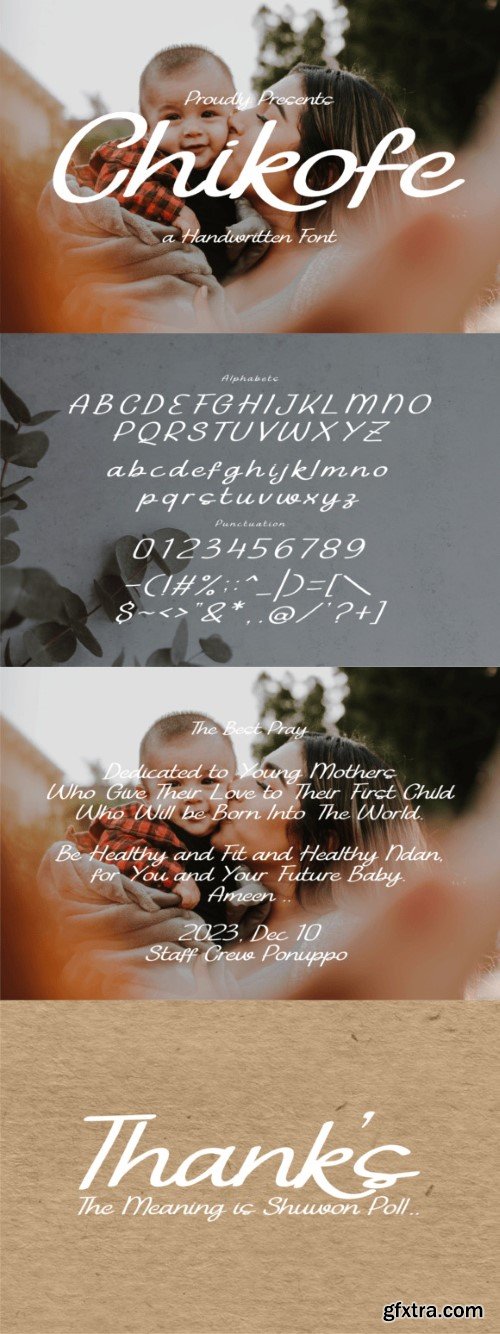
奇科夫字体
This font from the Handwritten family is very beautiful for happy occasions. Weddings and other special moments are the right choice for this. Love, Affection, Cheerfulness, Joy are the themes of this font.